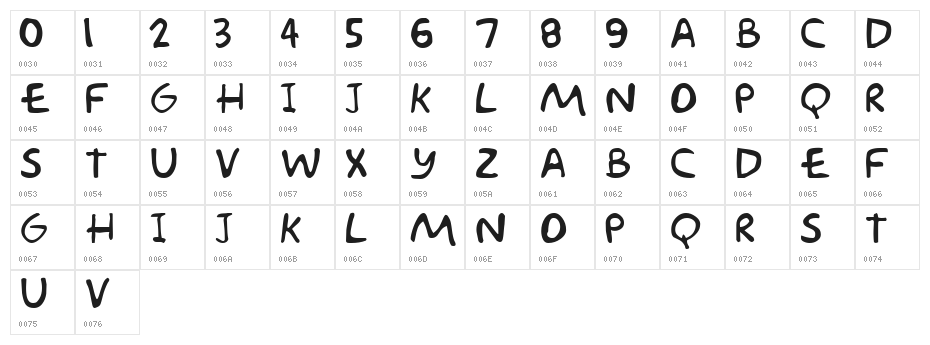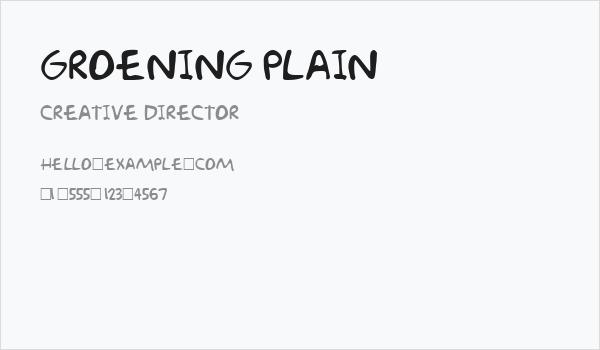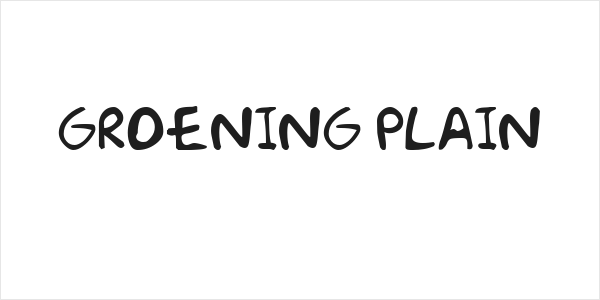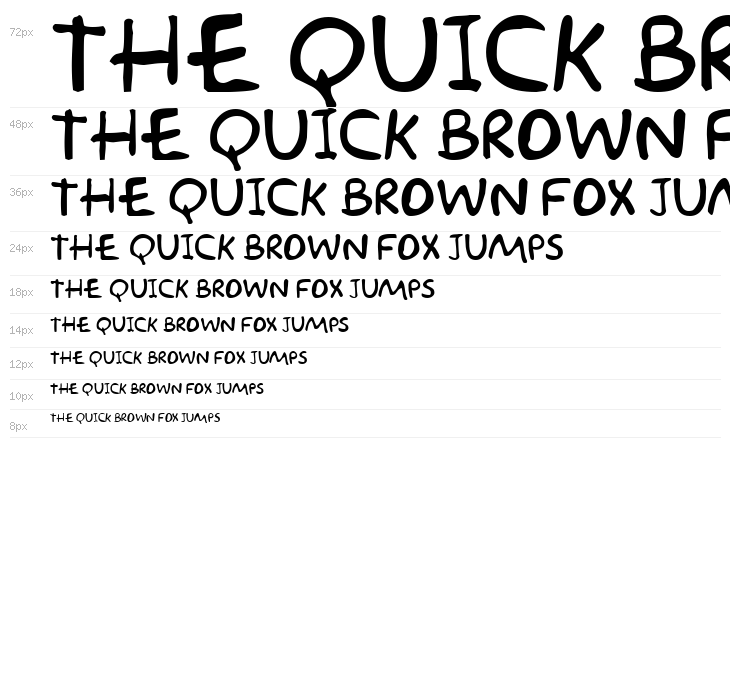
Groening Plain Font
Groening Plain Description
This font features a playful and informal style, reminiscent of hand-drawn lettering. The characters are bold and rounded, with a slightly irregular baseline that adds to its casual charm. The uppercase and lowercase letters maintain a consistent weight, providing a cohesive look across the alphabet. The numbers are equally bold and rounded, ensuring readability. The overall appearance is approachable and friendly, making it suitable for projects that require a personal touch. The font's design is simple yet effective, with a focus on clarity and legibility.
| Proposed Projects | Ideal for children's books, comic strips, casual branding, and playful invitations. |